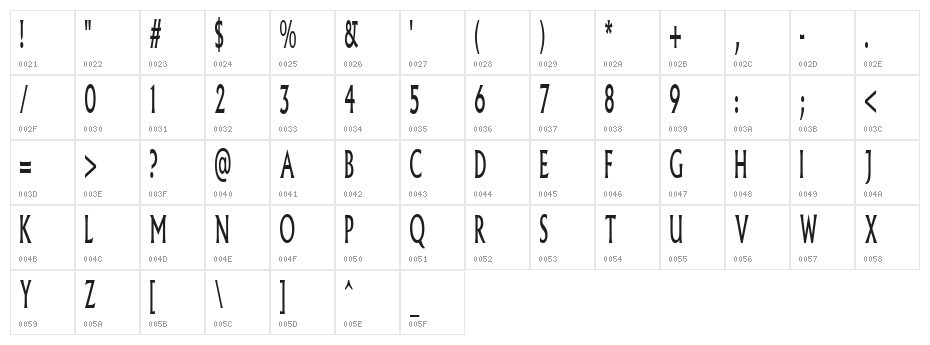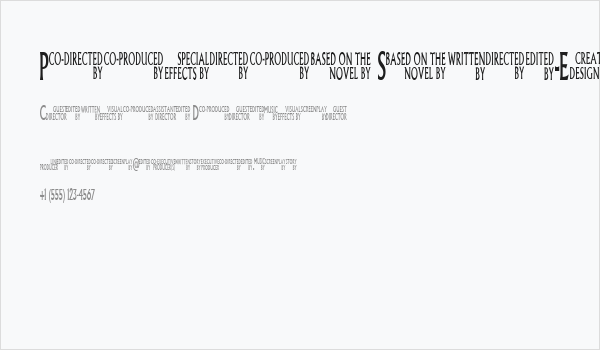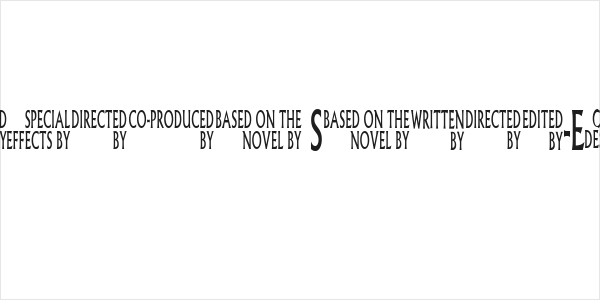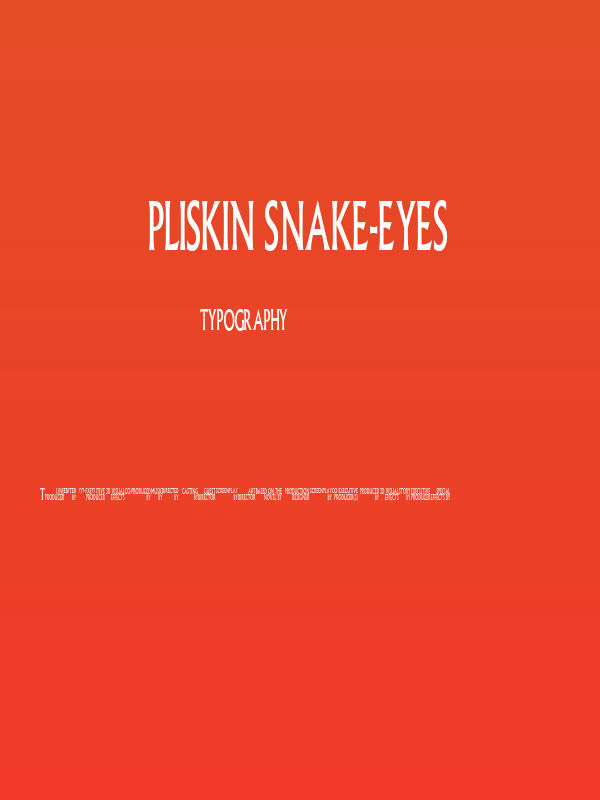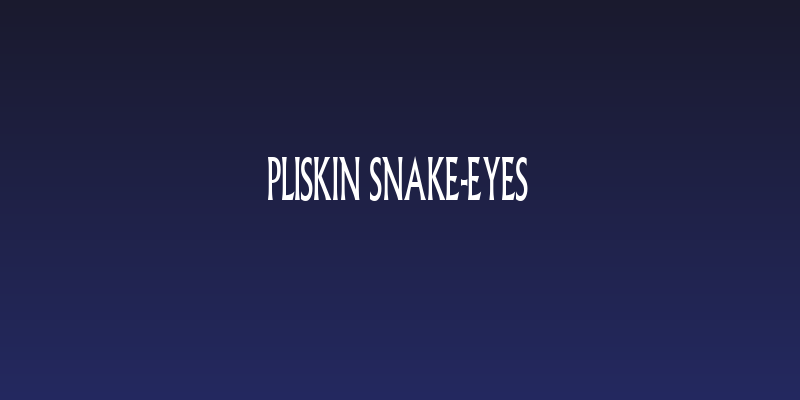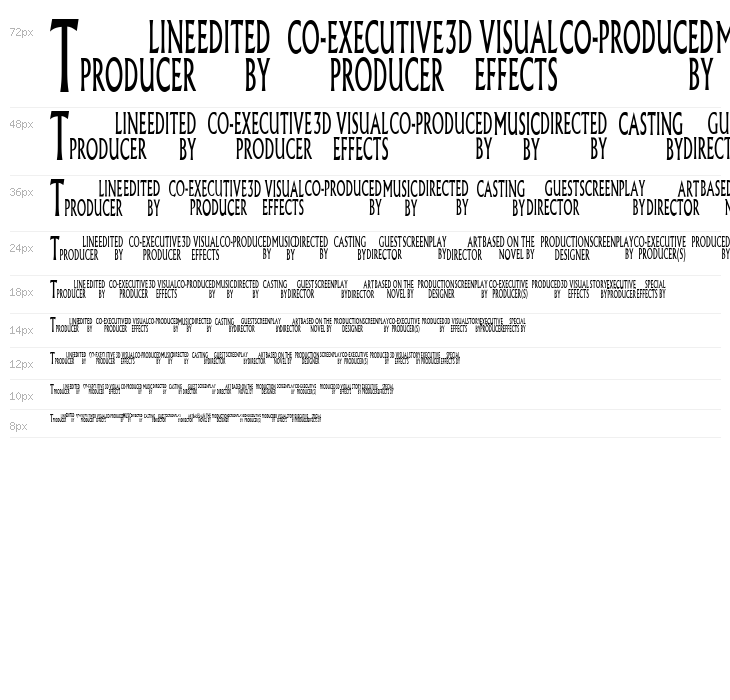
Pliskin Snake-Eyes Font
Pliskin Snake-Eyes Description
This font features a bold and striking design with tall, narrow characters that exude a sense of authority and sophistication. The uppercase letters are particularly elongated, giving them a commanding presence, while the lowercase letters maintain a consistent style that complements the overall aesthetic. The numerals are clear and distinct, ensuring readability. Special characters are designed to match the font's unique style, adding to its versatility. The font's sharp edges and clean lines make it ideal for projects that require a modern and impactful look.
| Proposed Projects | Ideal for movie posters, book covers, branding, and advertising where a strong visual impact is needed. |